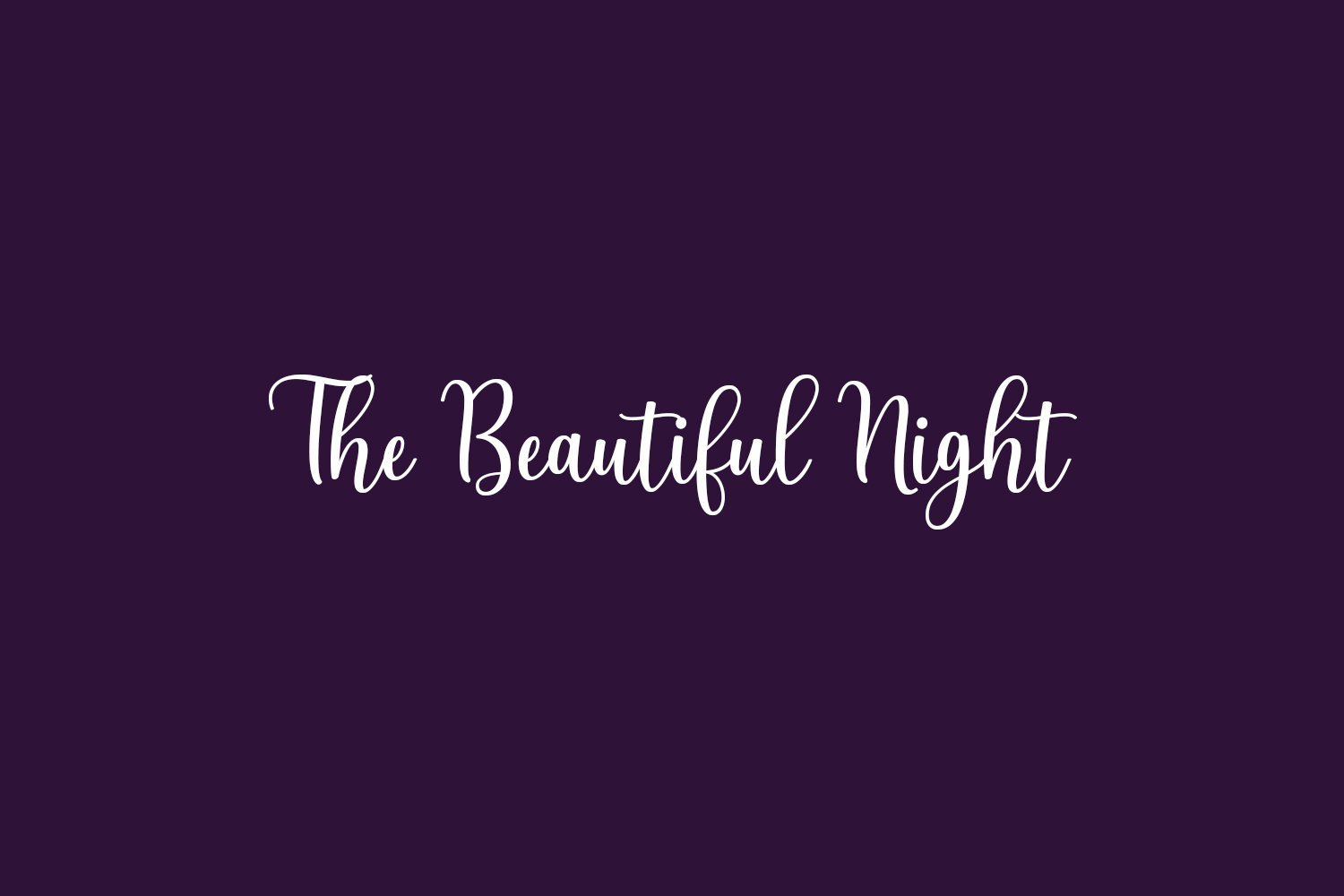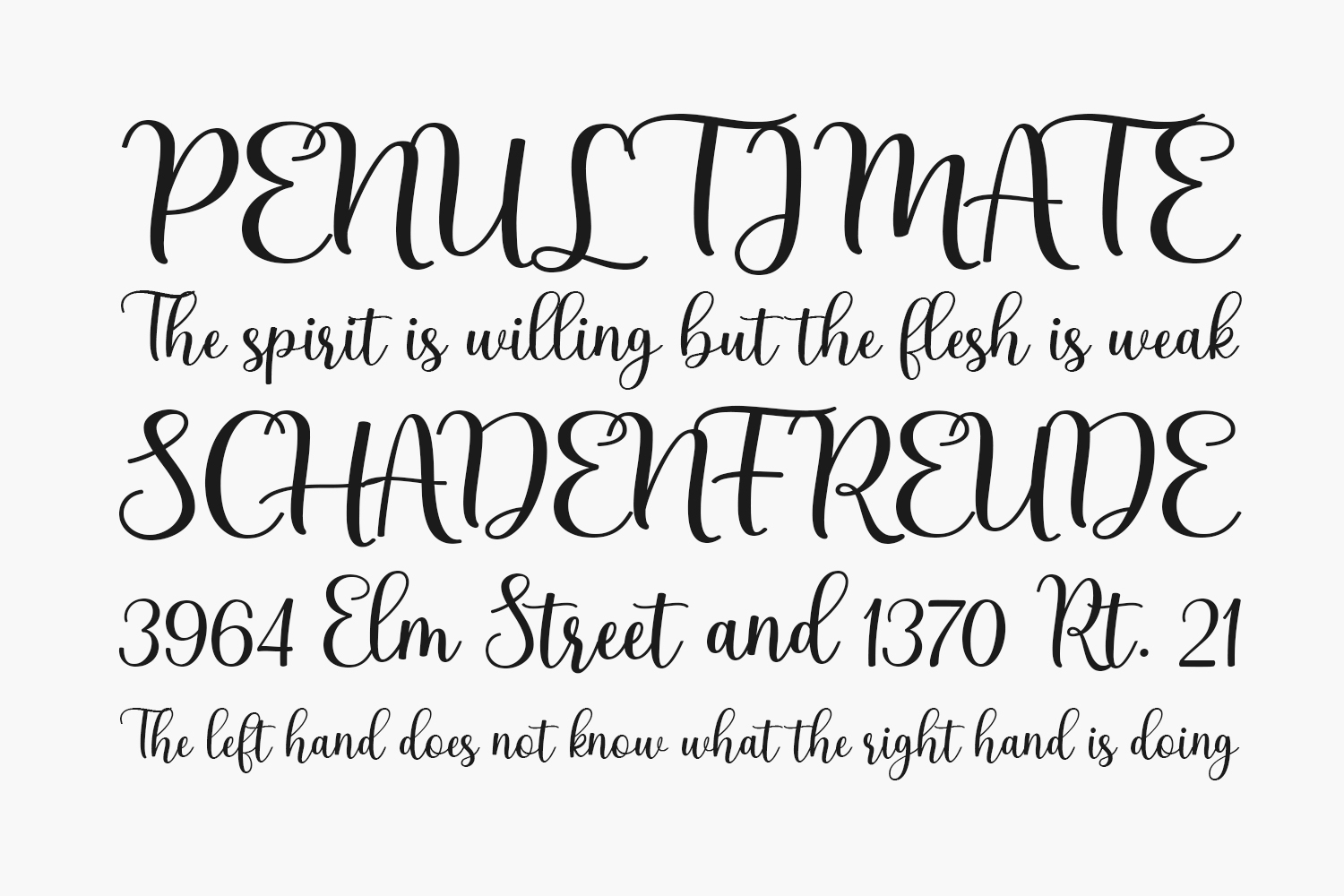
The Beautiful Night Free Font is a romantic and sweet calligraphy typeface with characters that dance along the baseline. It will add a luxury spark to any design project that you wish to create. The Beautiful Night Free Font was designed by Attract Studio and is free for personal use only. Please purchase the full version for commercial use.